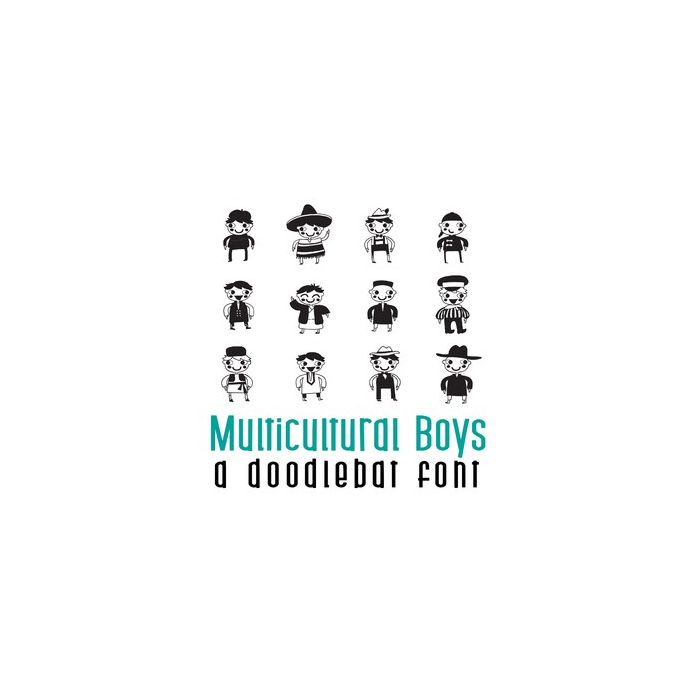
This adorable full-color doodlebat font features 26 multicultural boys from around the world. Perfect for cards, crafts, gifts, decor, scrapbook pages, planner stickers, and more!